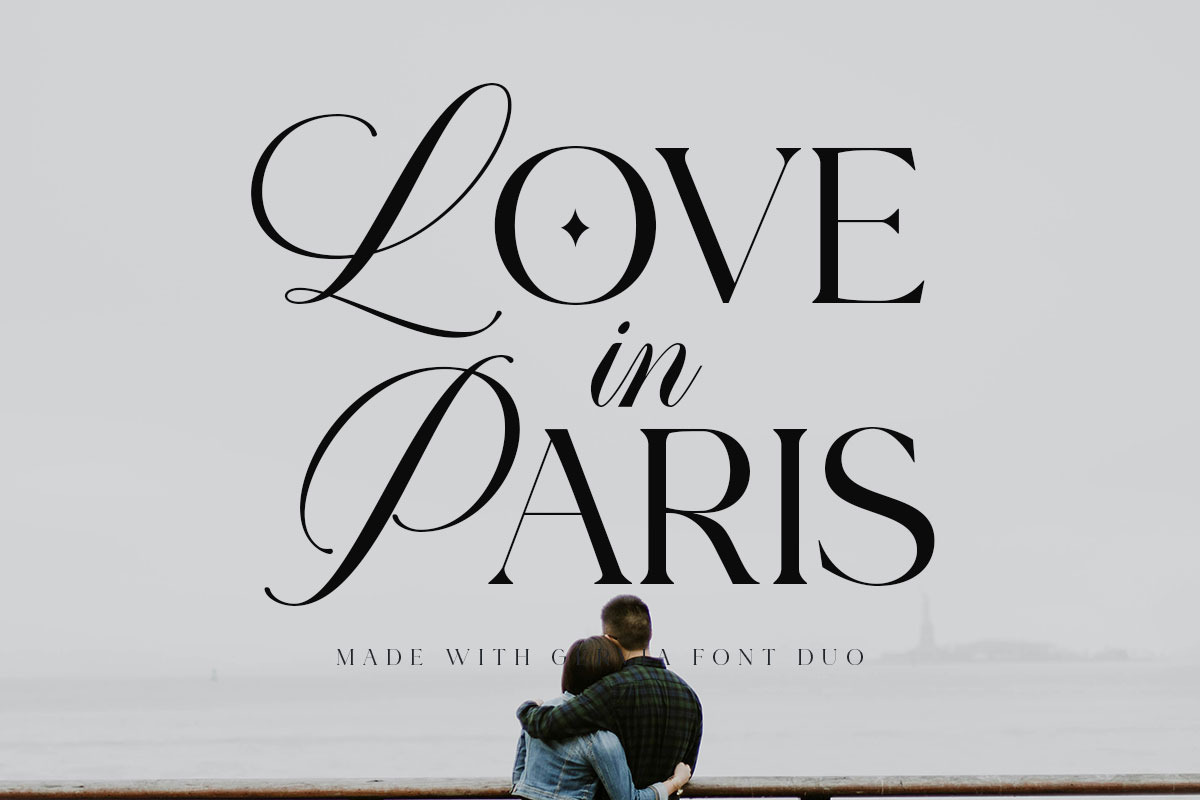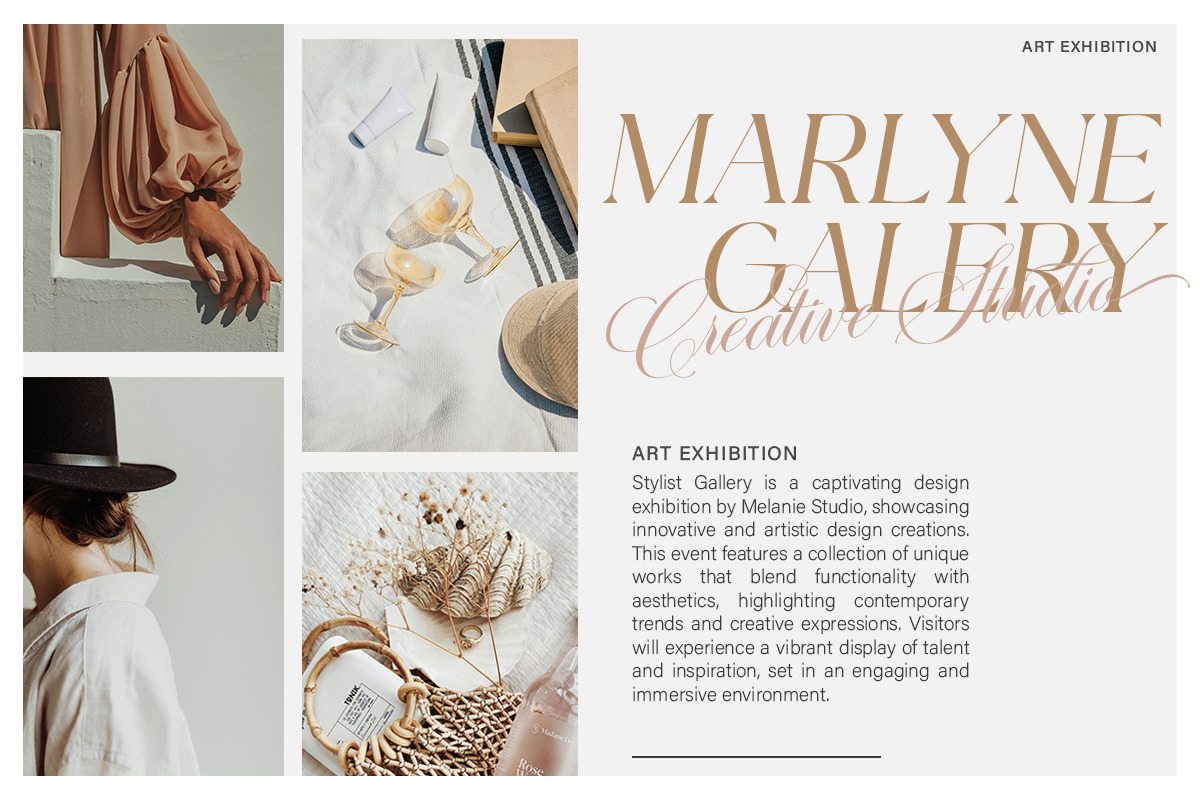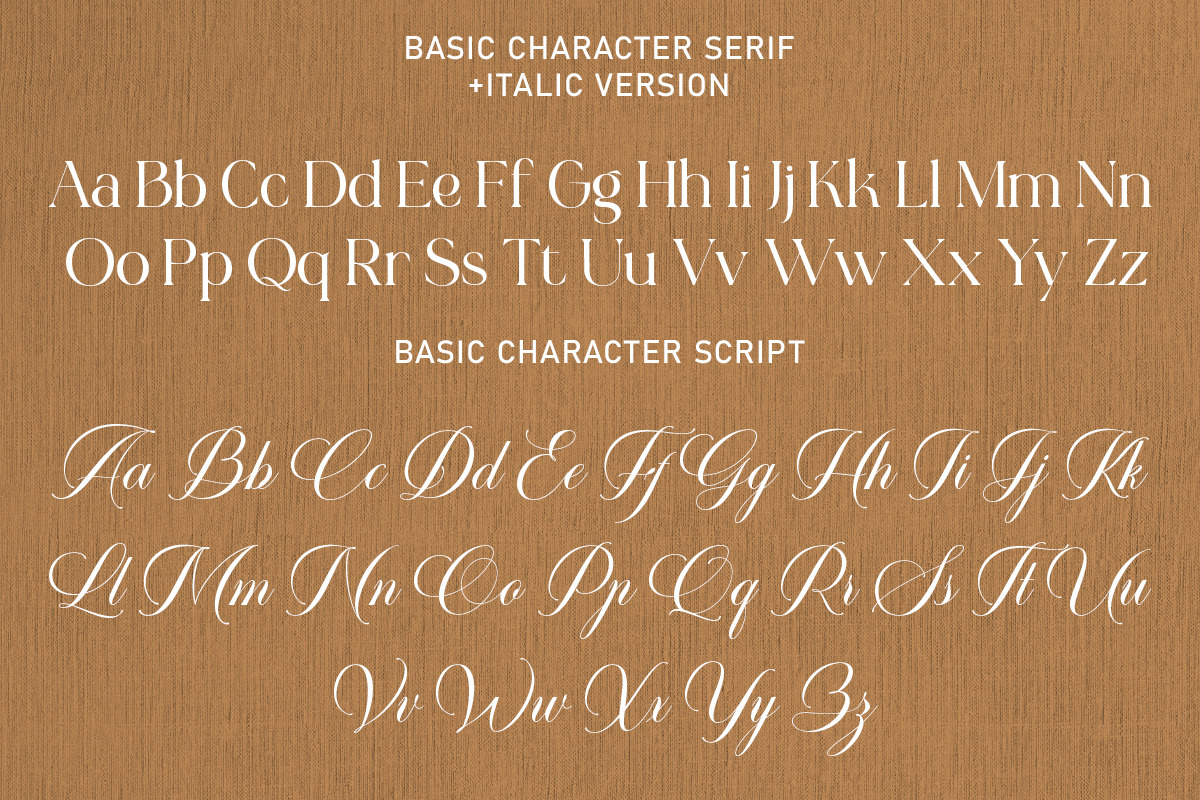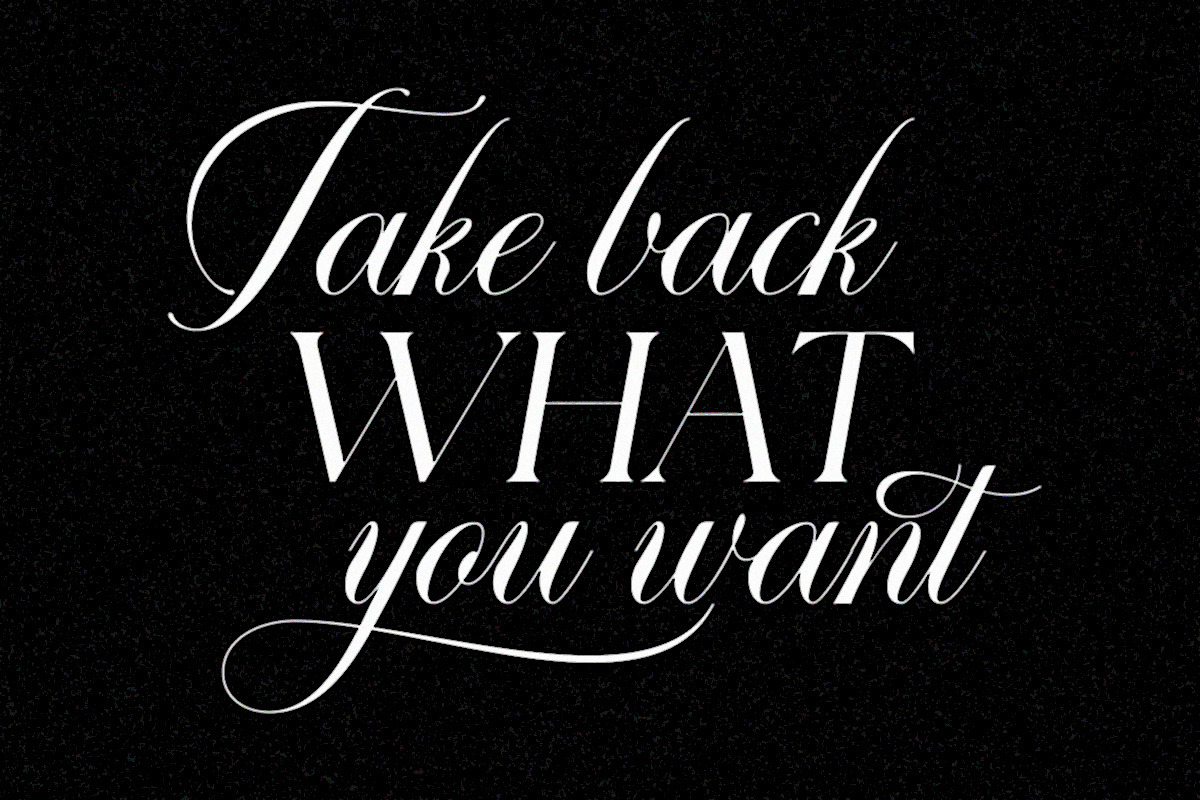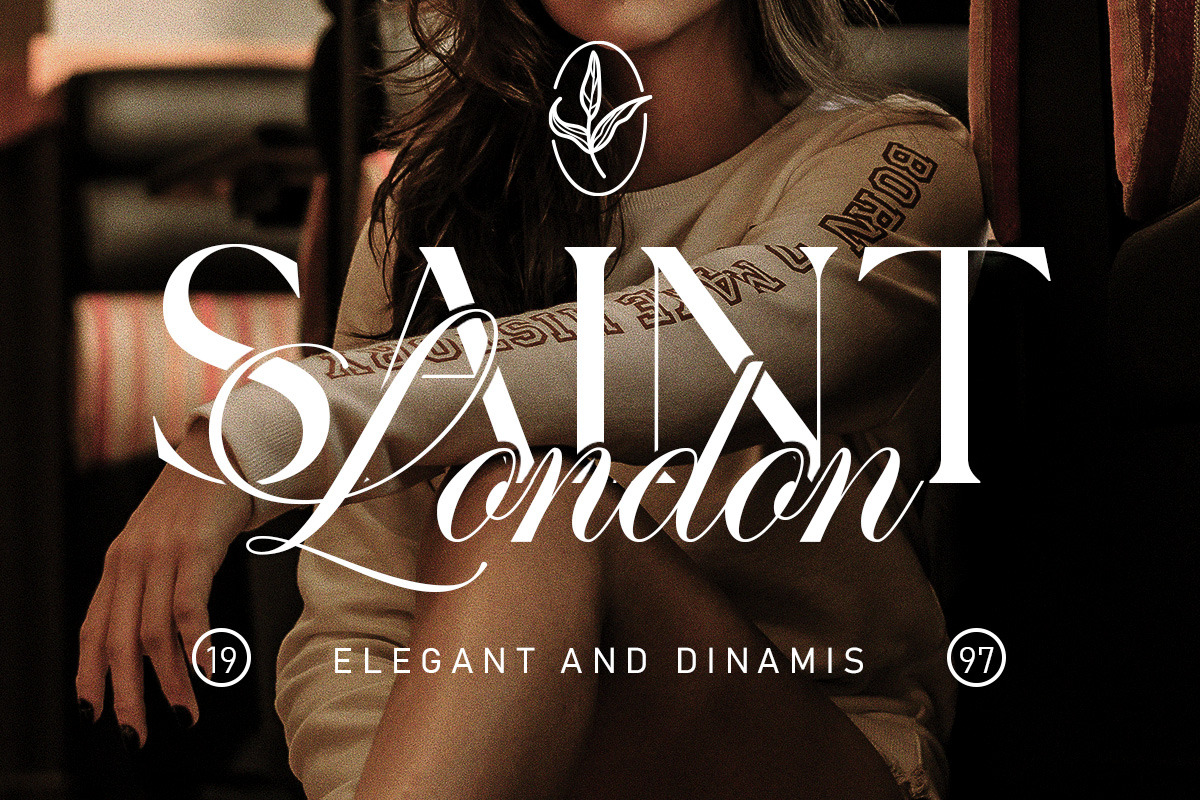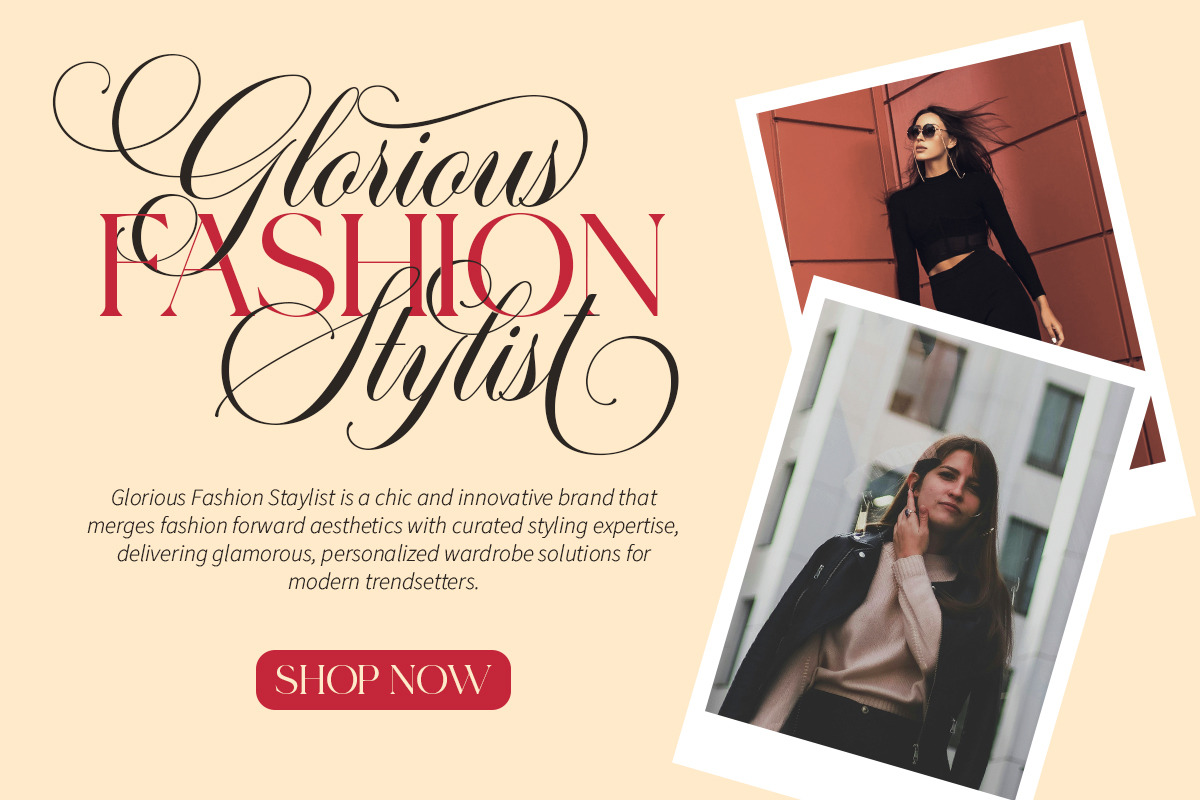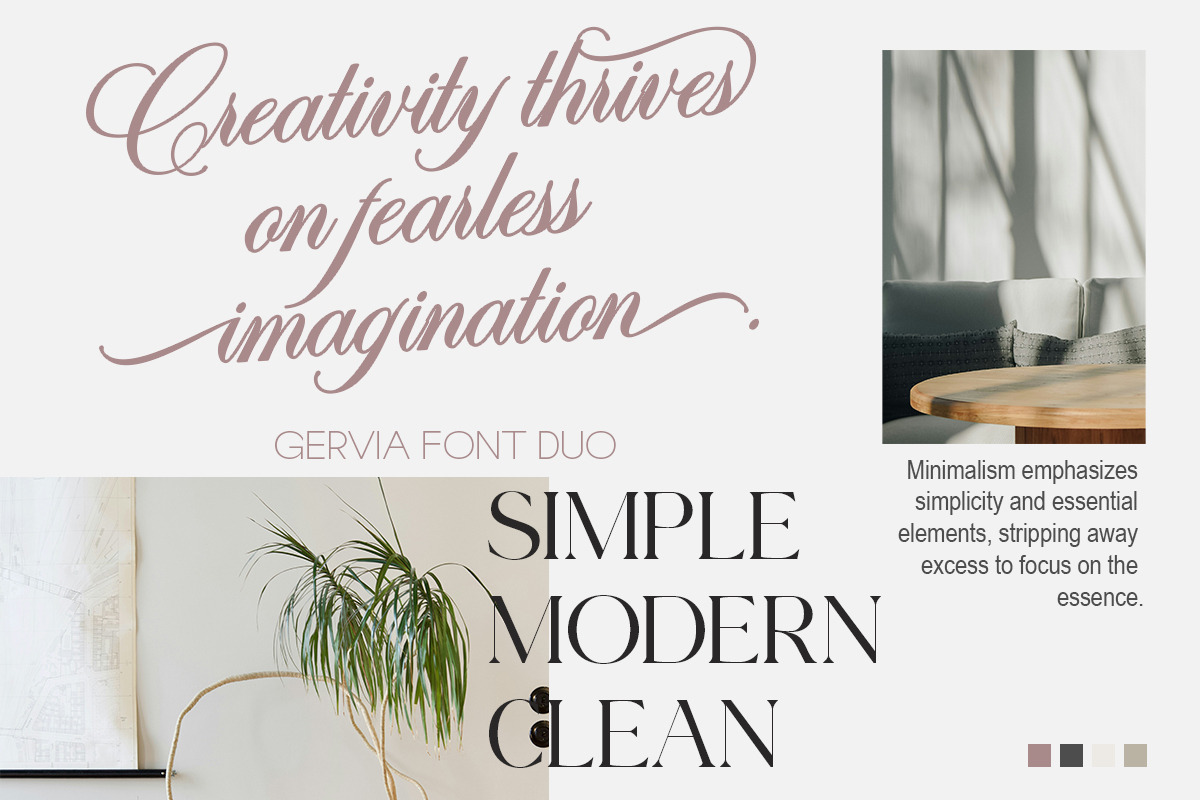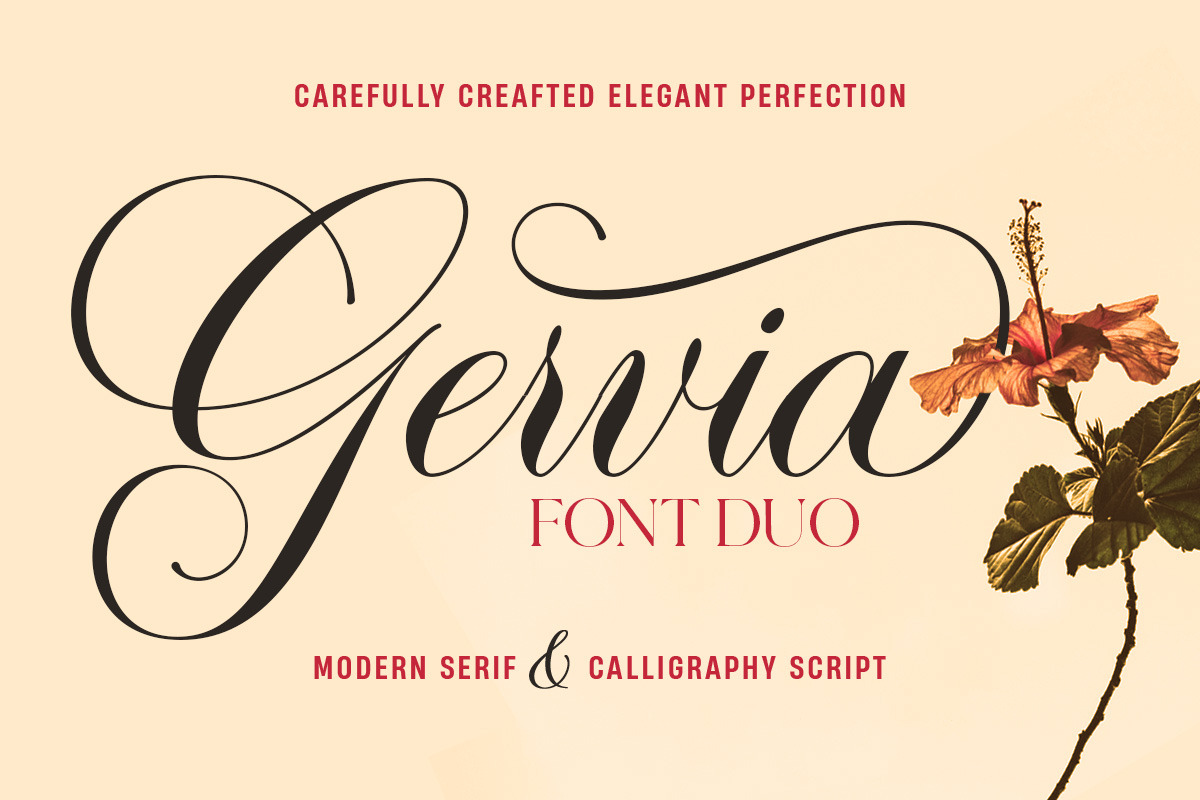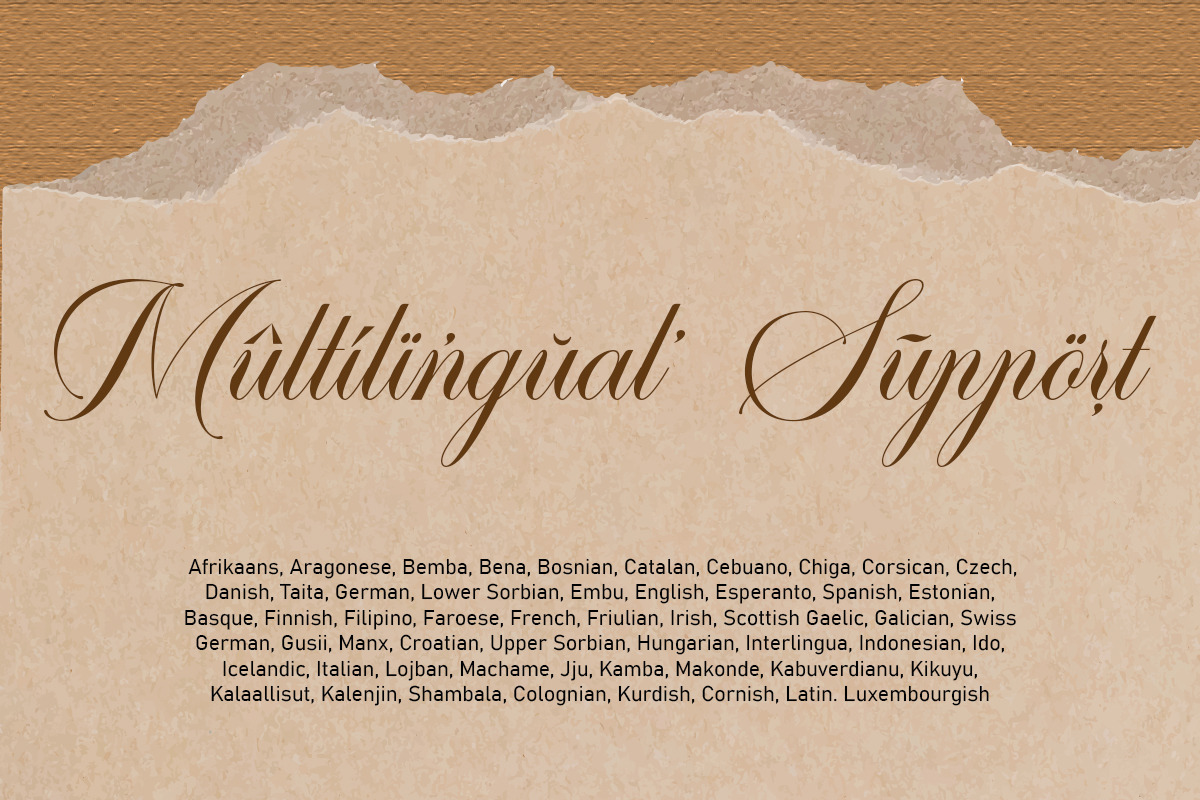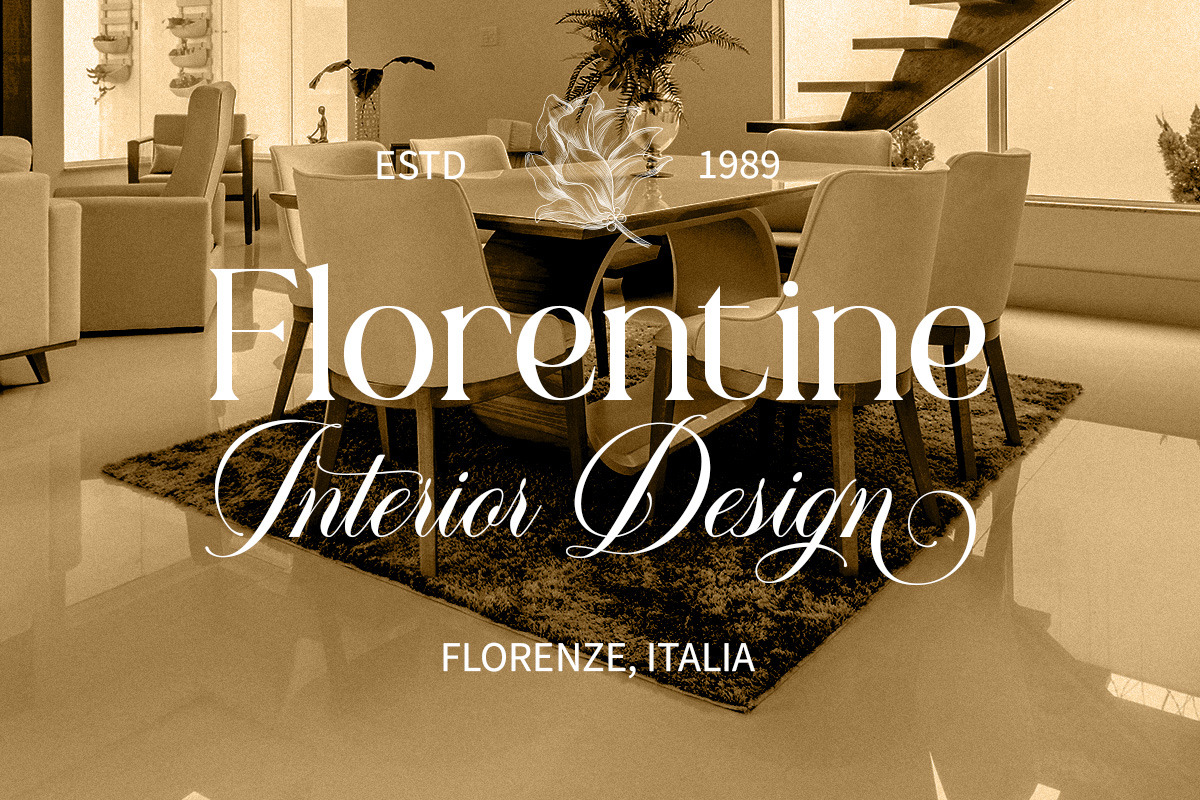
Gervia Font Duo
Gervia Font Duo is a combination of two beautiful fonts, namely a calligraphy font with a modern serif font with a classic look that is simple and easy to read.
Gervia Script Pro has 800+ unique alternative characters, including simple latin and pro latin support. This font is casual and beautiful with swashes. It can be used for various purposes, such as logos, product packaging, wedding invitations, branding, headlines, signage, labels, signatures, book covers, posters, quotes, and many more.
Gervia Serif has two different versions, namely regular and italic, which will make your design more beautiful and more prominent.